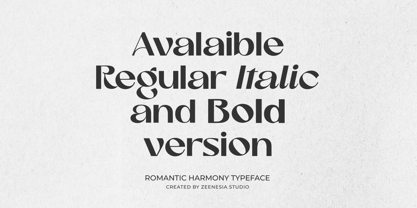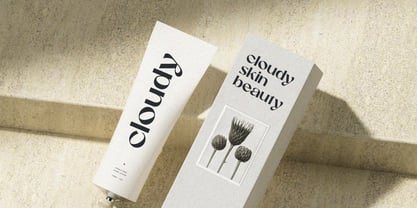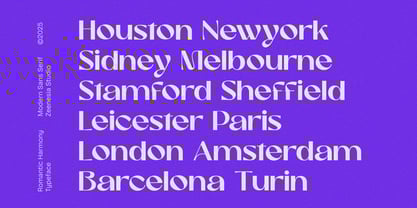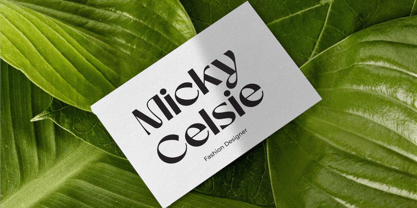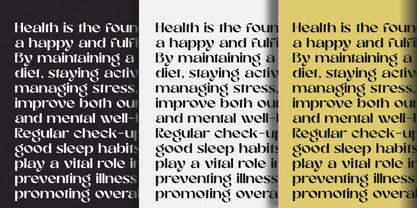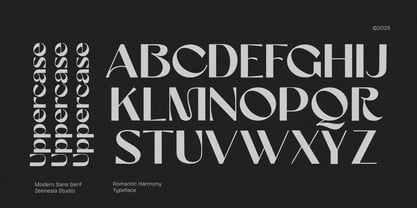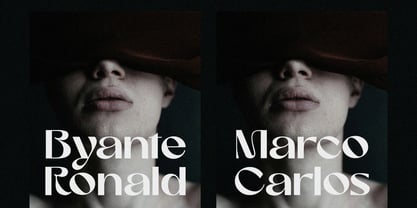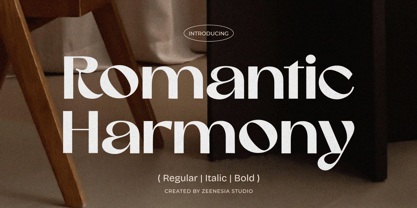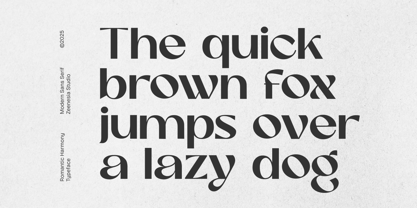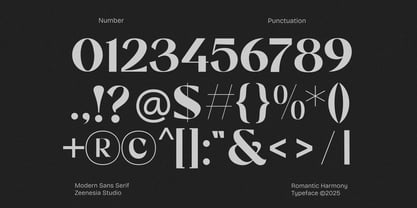
Romantic Harmony
by Zeenesia Studio
The Romantic Harmony Font Family was designed by Doni Purwoko and published by Zeenesia Studio. Romantic Harmony contains 3 styles and family package options.
Romantic Harmony – An Elegant Sans
Romantic Harmony is a striking sans-serif font designed to make a lasting impression. With its strong character and distinctive personality, this font blends modern aesthetics with timeless appeal.
Featuring three versatile styles—Regular, Italic, and Bold—Romantic Harmony adapts effortlessly to various design needs, from branding and editorial layouts to packaging and digital interfaces. Whether you're aiming for sophistication or contemporary minimalism, this font delivers both power and grace in every letterform.
Its clean yet expressive curves give it a refined look, making it perfect for headlines, logos, and eye-catching typography. The italic version adds a touch of dynamism, while the bold weight enhances readability and impact.
Elevate your designs with Romantic Harmony—where strength meets elegance in perfect balance.|